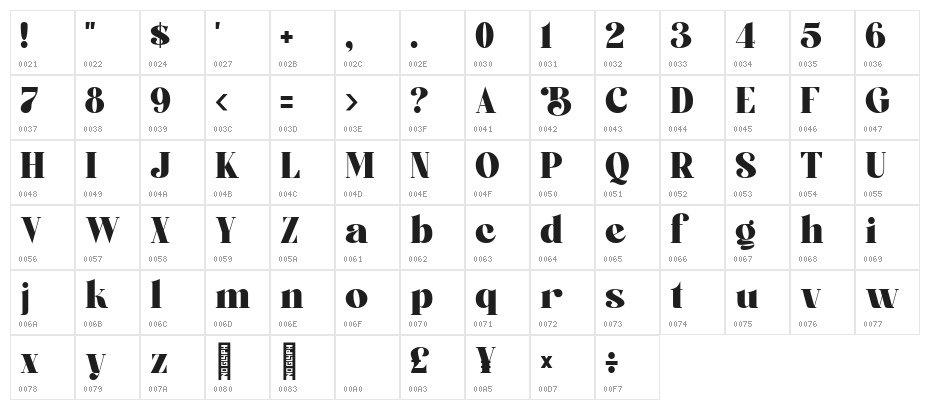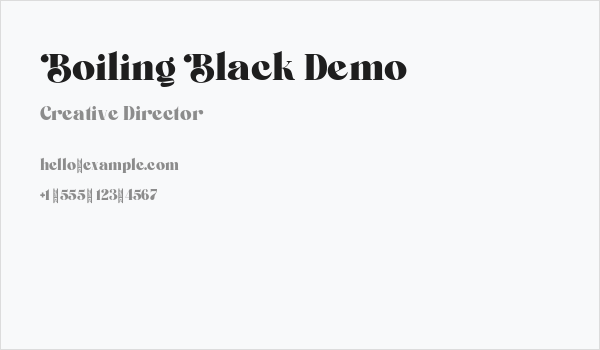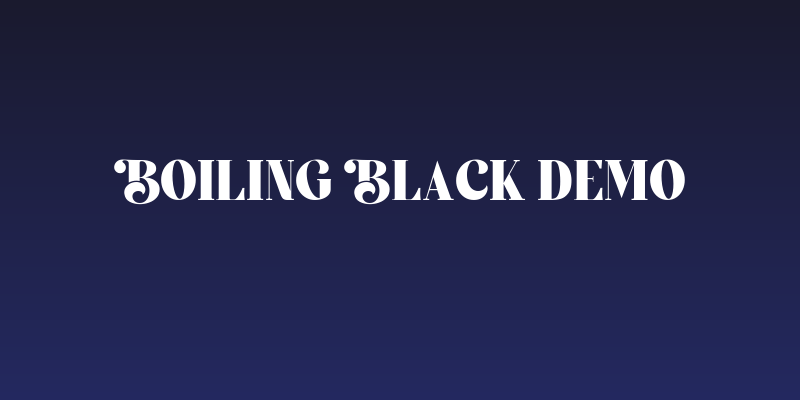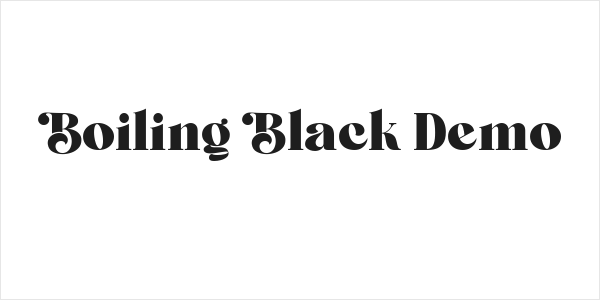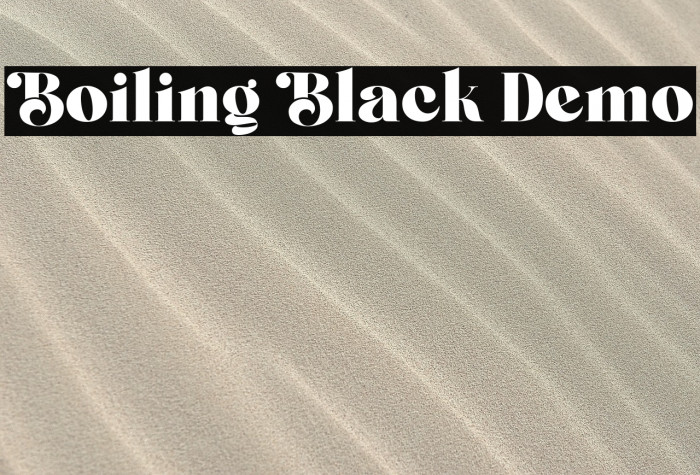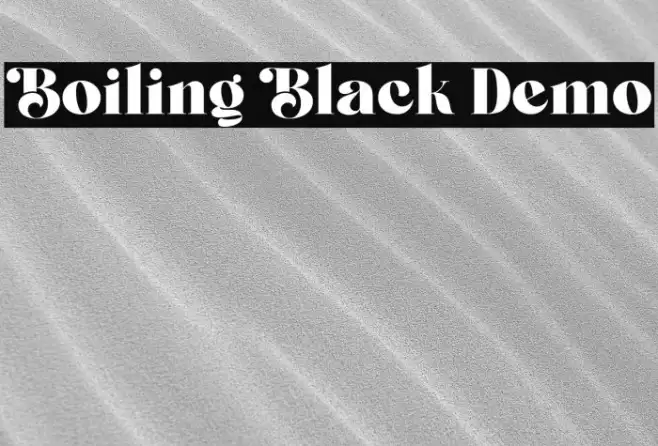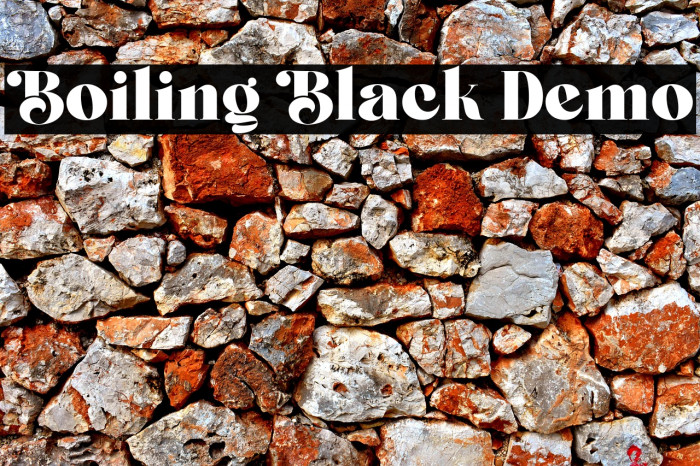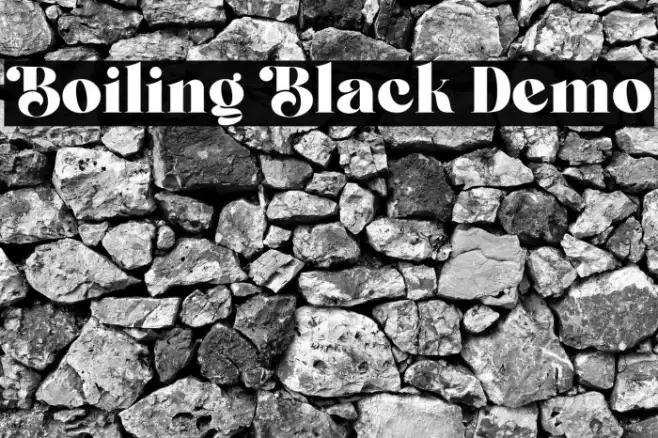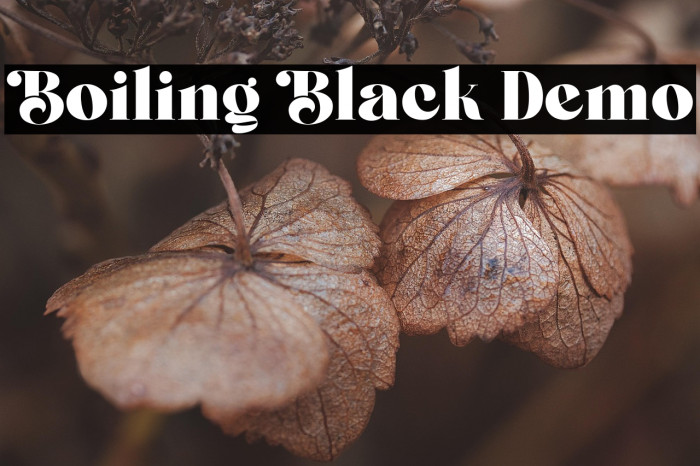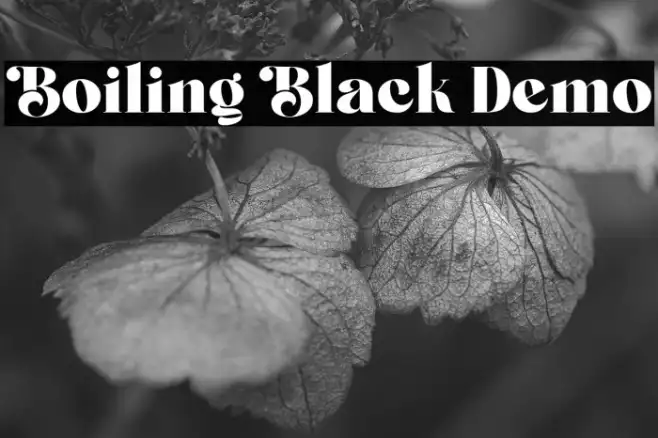
Boiling Black Demo Font
Boiling Black Demo Description
This font features a bold and striking design with high contrast between thick and thin strokes, creating a dramatic and eye-catching appearance. The uppercase letters are particularly distinctive, with unique curves and flourishes that add a sense of elegance and flair. The lowercase letters maintain a consistent style, with rounded forms and a strong presence. The numerals are equally bold, ensuring they stand out in any context. Special characters are designed with the same attention to detail, making them perfect for creative and decorative uses.